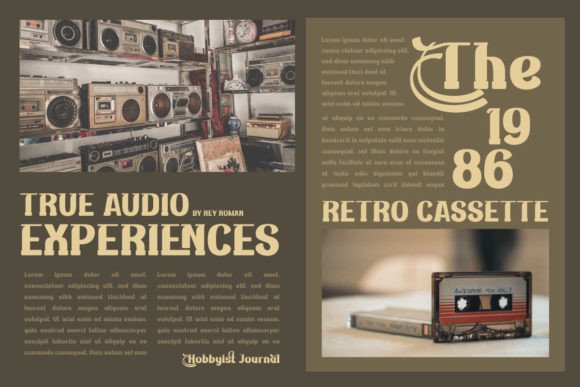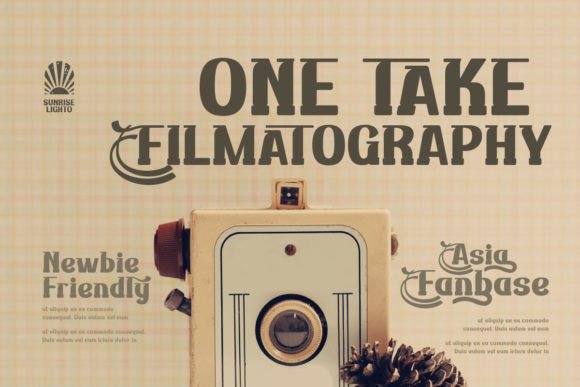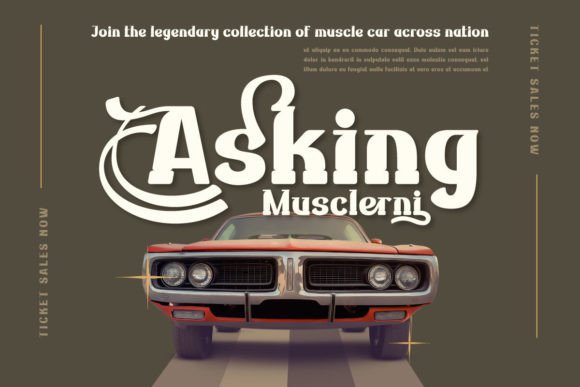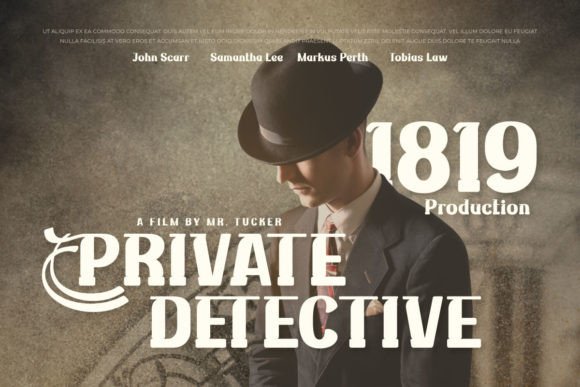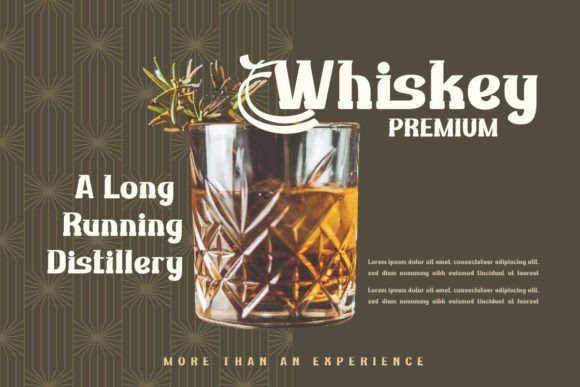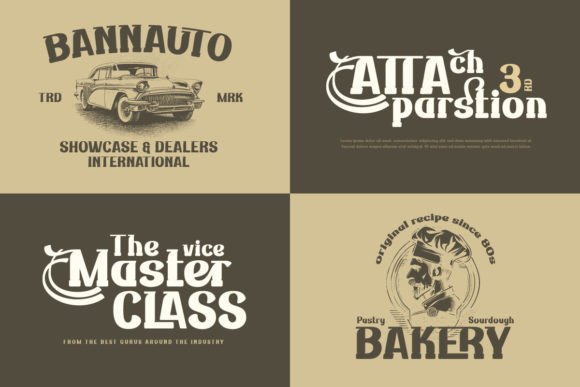
Introduction to Masheu Font
Masheu is a classic serif font that depicts elegance and perfection in every line and curve of the letters.
With a distinct touch of classic modernism, this font is the perfect solution for creating designs that exude a timeless beauty Each Masheu character is designed with captivating detail and subtlety.
Key Features of Masheu Font
Why Choose Masheu Font?
Masheu Font offers exceptional quality and versatility, making it a valuable addition to your design toolkit. Whether you’re creating for personal projects or commercial use, Masheu Font delivers professional results.